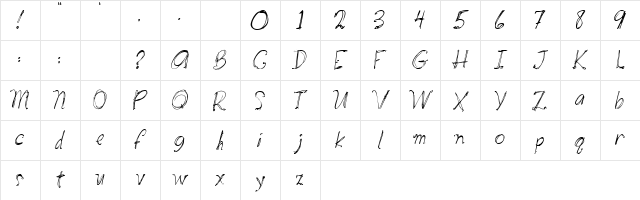
Design Context for p://www.tw
p://www.tw is a composed and adaptable typeface that performs quietly and consistently across a wide range of design contexts.